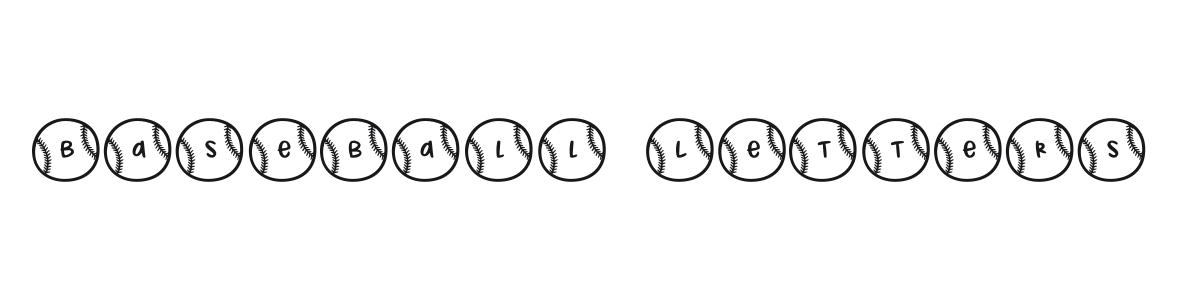
Baseball Letters
Baseball Letters wraps every character inside a hand-drawn baseball illustration, stitching and all. It's a single-purpose novelty font built entirely around the sport's iconic ball motif, making each word read as a string of baseballs. The sketchy, informal linework keeps it feeling handmade rather than clip-art generic.